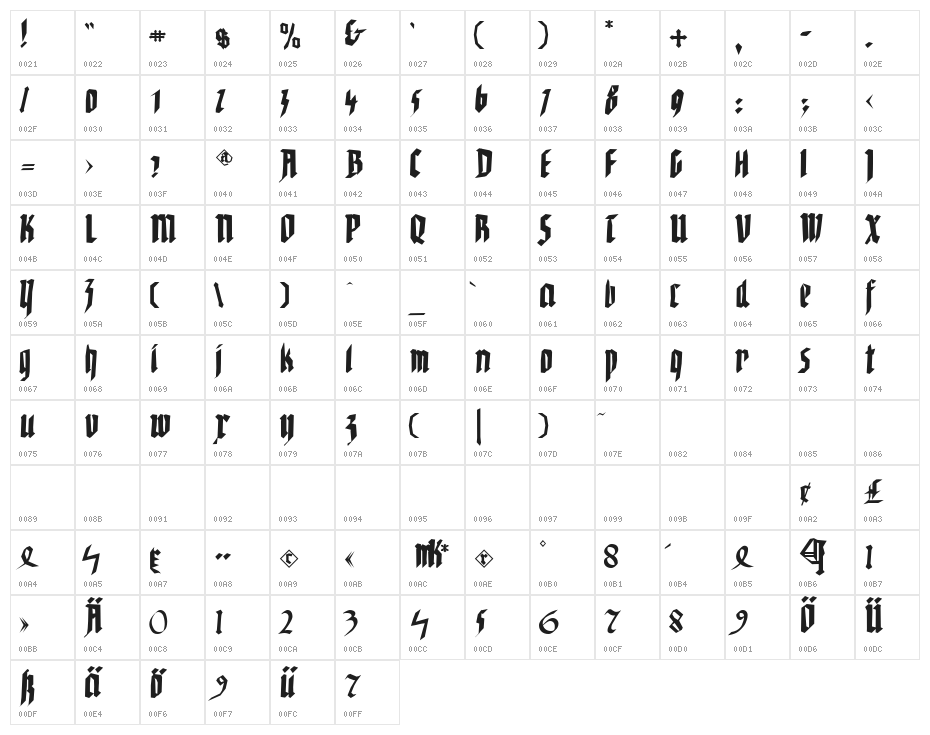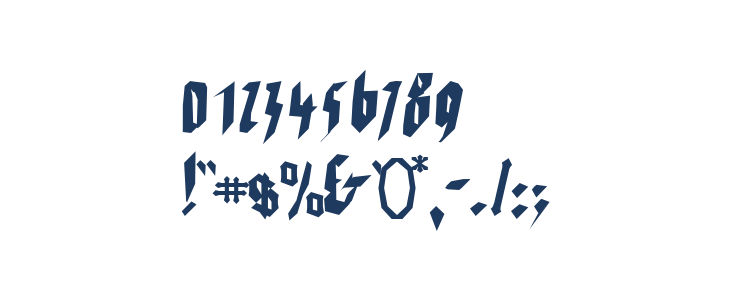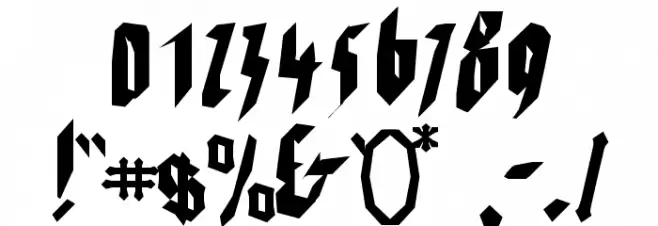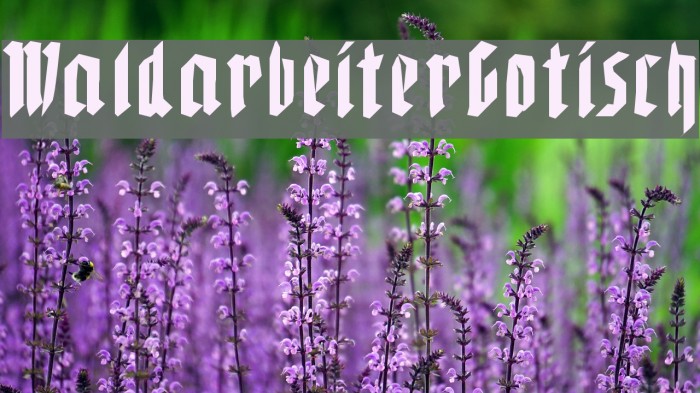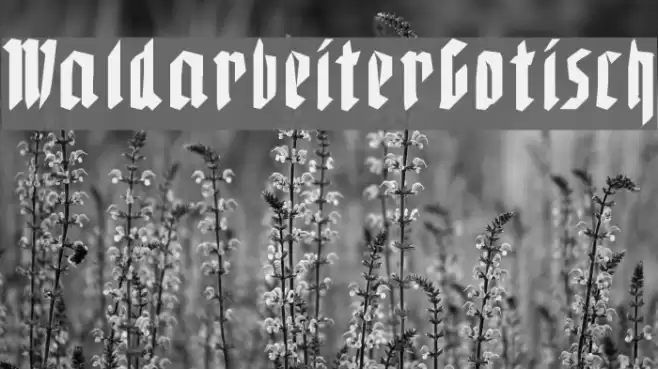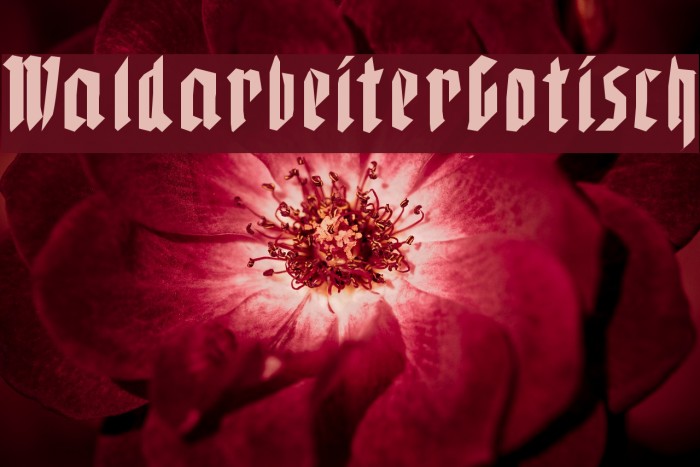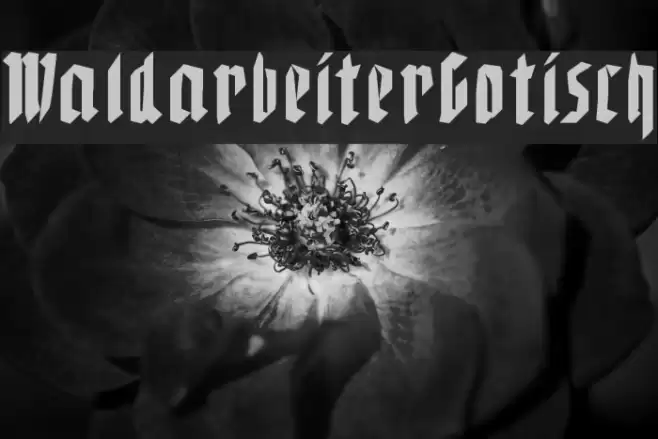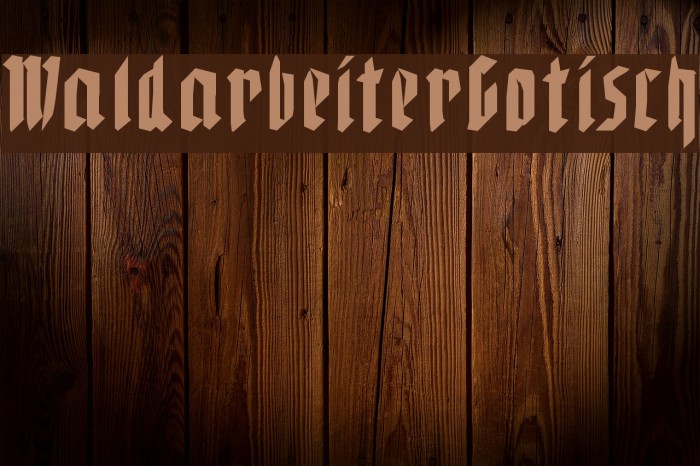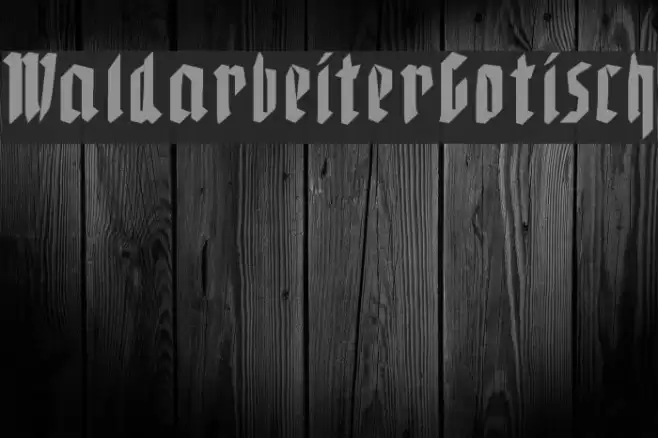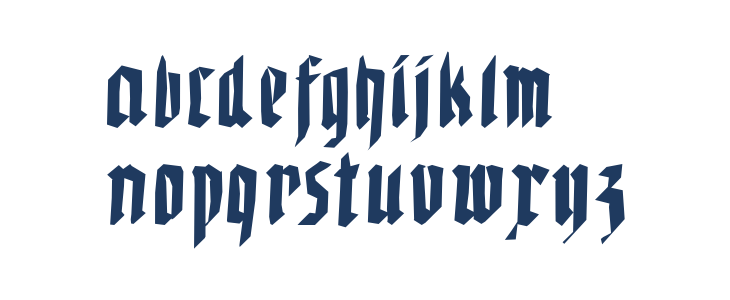
WaldarbeiterGotisch Font
WaldarbeiterGotisch Description
This font exhibits a traditional Blackletter style, characterized by its sharp, angular lines and dramatic strokes. The uppercase letters are bold and imposing, with a strong vertical emphasis and intricate detailing that reflects a historical, Gothic aesthetic. The lowercase letters maintain the same angularity and boldness, offering a cohesive look throughout the typeface. Numerals and special characters are equally stylized, with unique forms that complement the overall design. This font is reminiscent of medieval manuscripts and heraldic scripts, making it ideal for projects that require a touch of historical or classical flair.
| Overall Style | Vintage |
| Use Case | Headlines, Logos, Decorative text |
| Proposed Projects | Ideal for historical documents, vintage posters, book covers, and branding that requires a classical or medieval touch. |